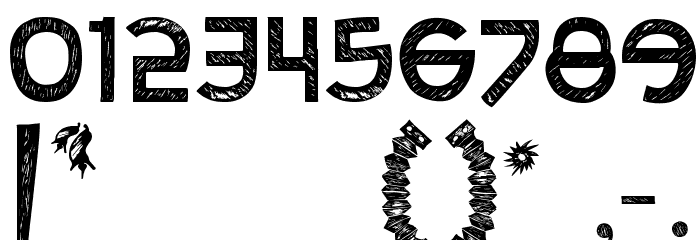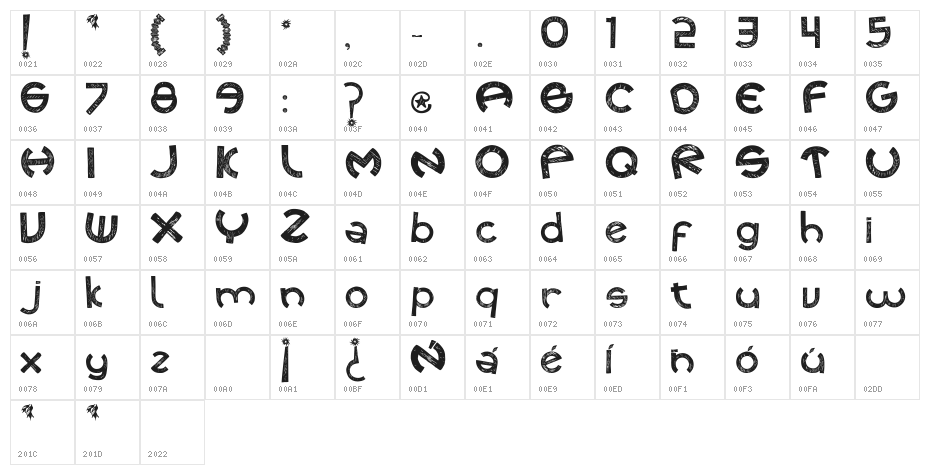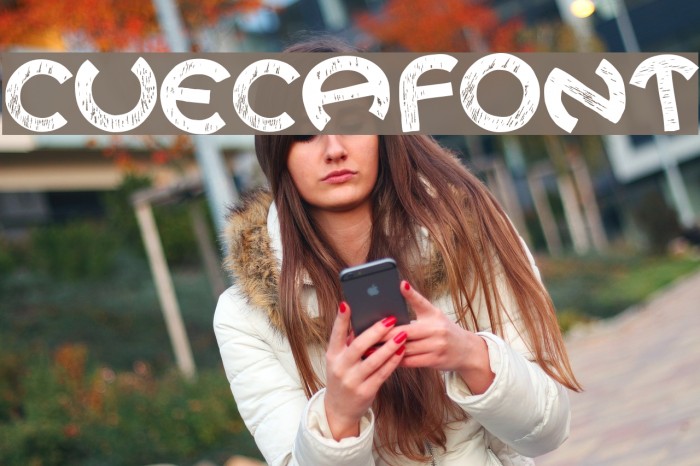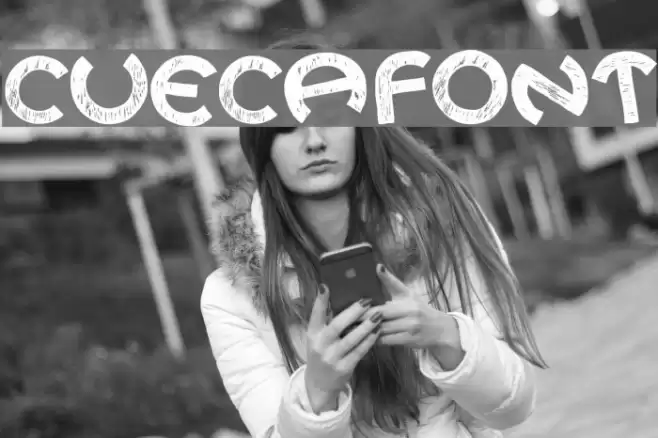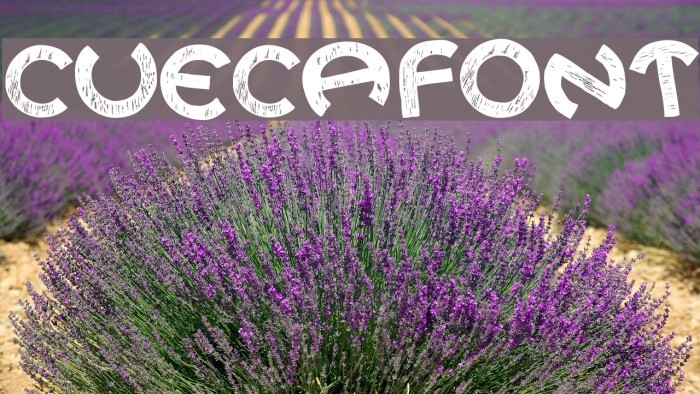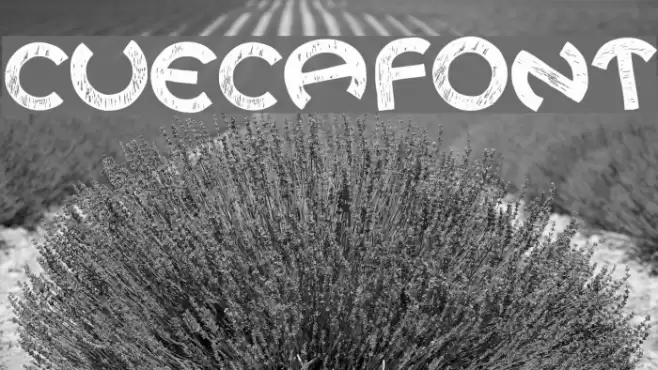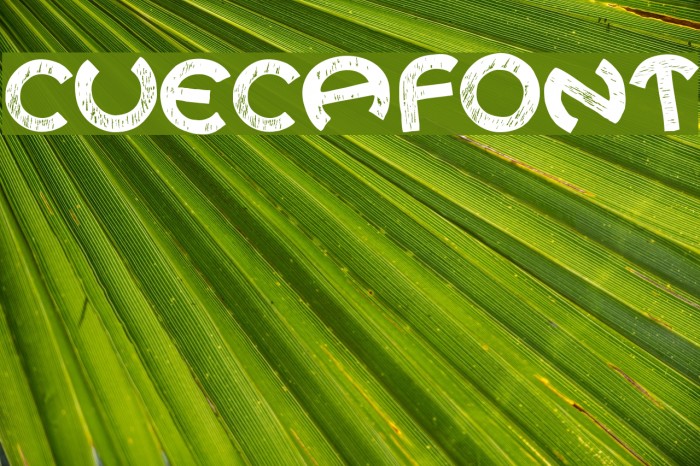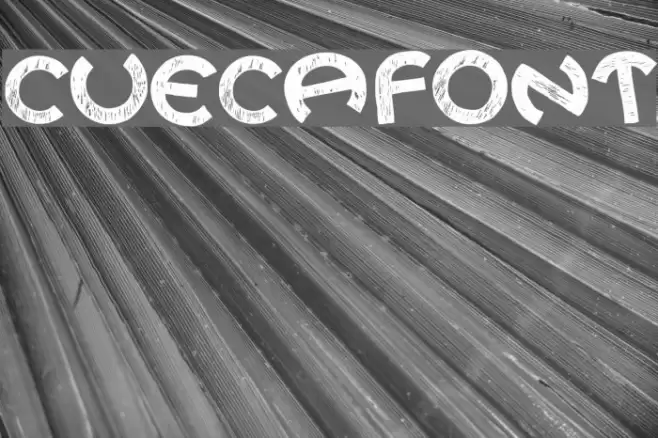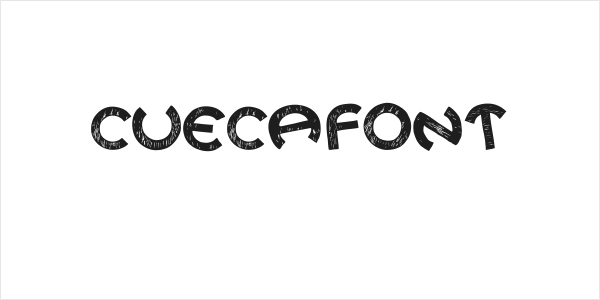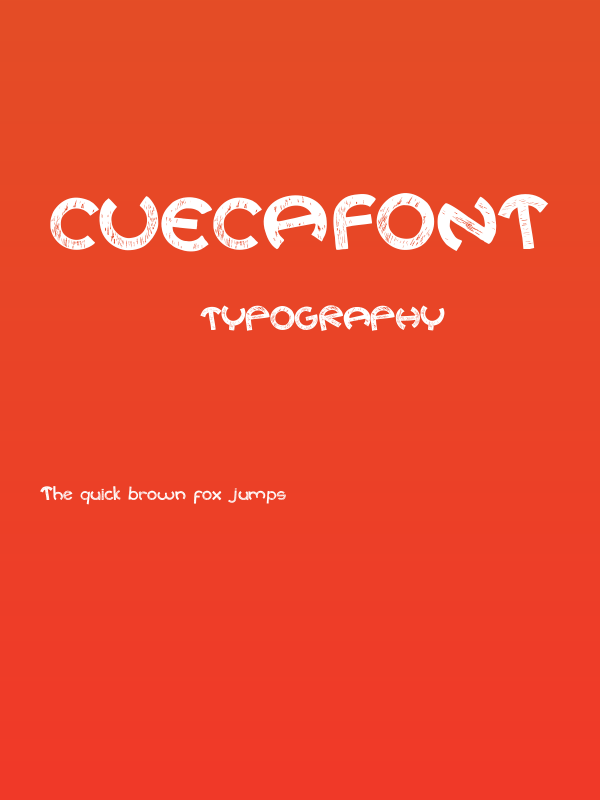
CUECAFONT Font
CUECAFONT Description
This font features a bold and textured style, with each character appearing as if it has been hand-drawn with a rough, sketch-like quality. The letters are uppercase and lowercase, with a playful and artistic flair that adds a sense of dynamism and creativity. The numbers and special characters maintain this textured appearance, contributing to a cohesive and visually engaging typeface. The overall design is reminiscent of chalk or crayon drawings, making it ideal for projects that require a touch of whimsy or a handmade feel.